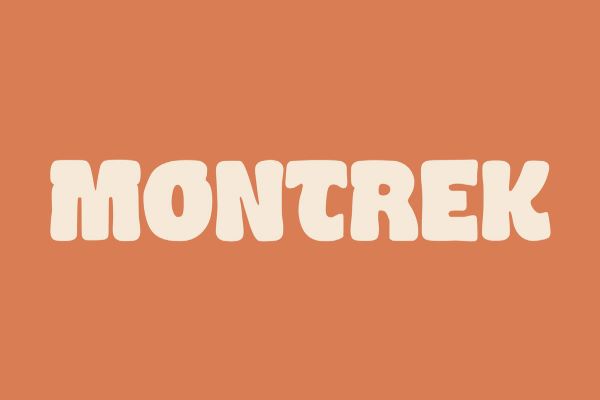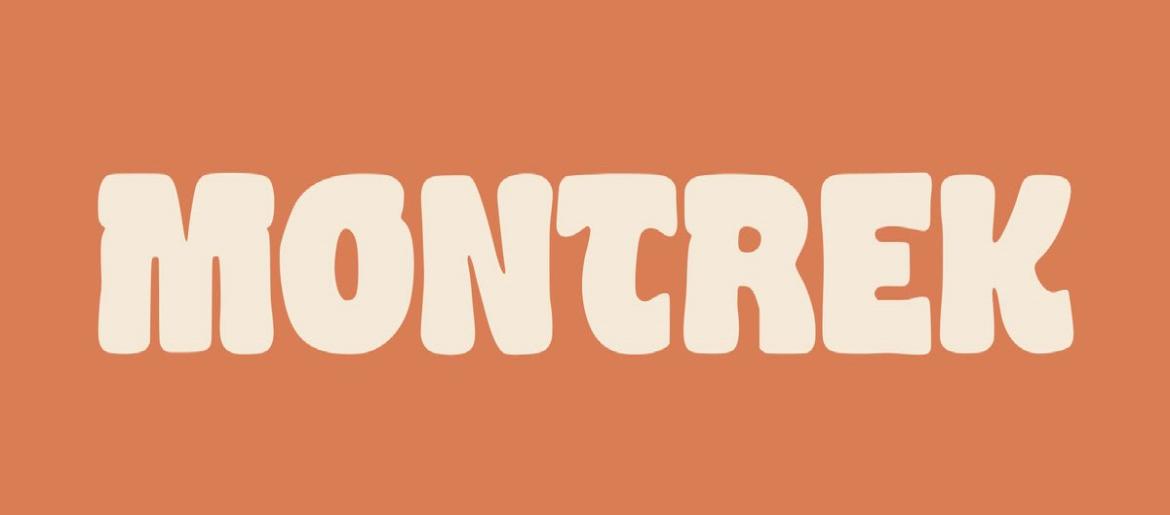
Montrek Font
Montrek is a hand-lettered display typeface with an expressive, organic quality that sets it apart from purely geometric alternatives. Fluid strokes and a naturally imperfect rhythm give the letterforms genuine warmth and character, making it an excellent choice for branding, poster design, apparel graphics, and any project where a human touch and creative personality are part of the brief.